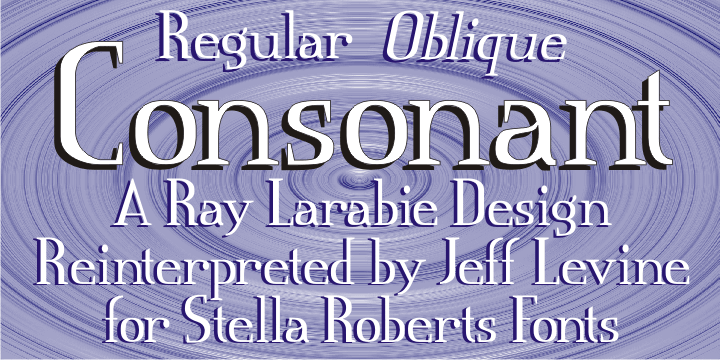
Consonant SRF is a display serif font published by Stella Roberts Fonts.
This imaginative and unusual serif text face was developed by Jeff Levine from an old Ray Larabie design. Improved and updated, it is exclusive to Stella Roberts Fonts.